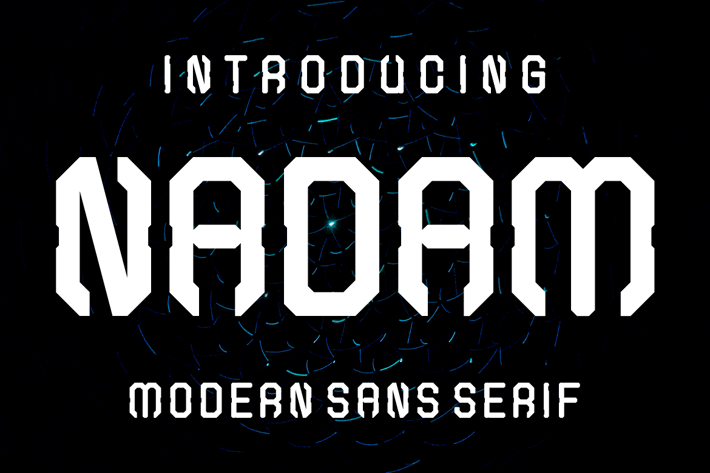
NADAM Font
Introducing our new product NADAM Font - Modern Font
NADAM Font - Modern Font is a bold and authentic display font. The font is suitable for any branding project like logo, t-shirt printing, esport, and many more. outstanding in a wide range of contexts.